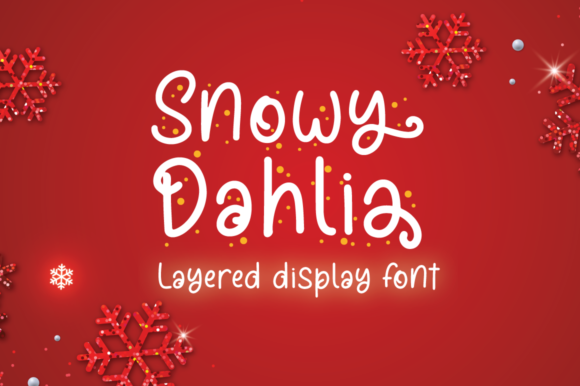
Indulge in the captivating embrace of Snowy Dahlia, a display font that exudes warmth and merriment. Handcrafted by the esteemed attypestudio, this font family is the perfect choice for those seeking to amplify their visual masterpieces.
Snowy Dahlia's charming curves and festive spirit will infuse your designs with an irresistible allure. Its versatility knows no bounds, seamlessly complementing projects ranging from captivating posters to enchanting invitations.
Beyond its aesthetic appeal, Snowy Dahlia is a practical choice for any designer's arsenal. Its ability to render flawlessly on mini LED displays ensures that your creations will shine brightly across a variety of digital platforms.
Embrace the magic of Snowy Dahlia and unlock endless possibilities for your designs. Each character is a stroke of genius, ready to ignite your creativity and captivate your audience. Experience the enchantment today and elevate your visual storytelling to new heights.